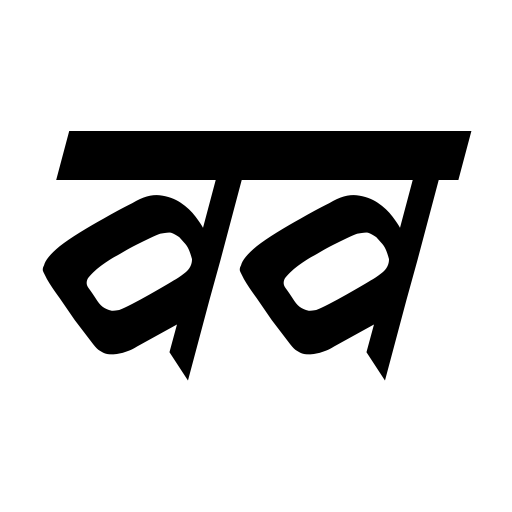
Biling Mi Marathi is a unique and artistic sans serif font with a distinct calligraphic flair, featuring sharp angles and a stylized, somewhat condensed appearance. Its dynamic strokes and irregular letterforms lend it an edgy and modern personality, making it well-suited for creative branding, posters, or headlines that seek to capture attention with a contemporary, informal yet sophisticated vibe. This font works best where individuality and cultural expression are key, ideal for fashion, lifestyle, or artistic projects requiring a standout, hand-crafted look.
biling mi marathi Font
About biling mi marathi Font
| Font family | biling mi marathi Font |